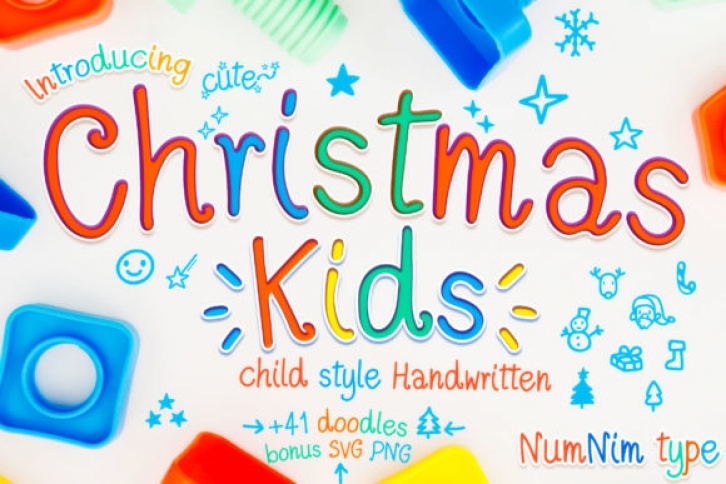
Christmas Kids is a joyful and delicate handwritten font. This font is perfect for holiday as well as children themed designs, especially when combined with bright colors.